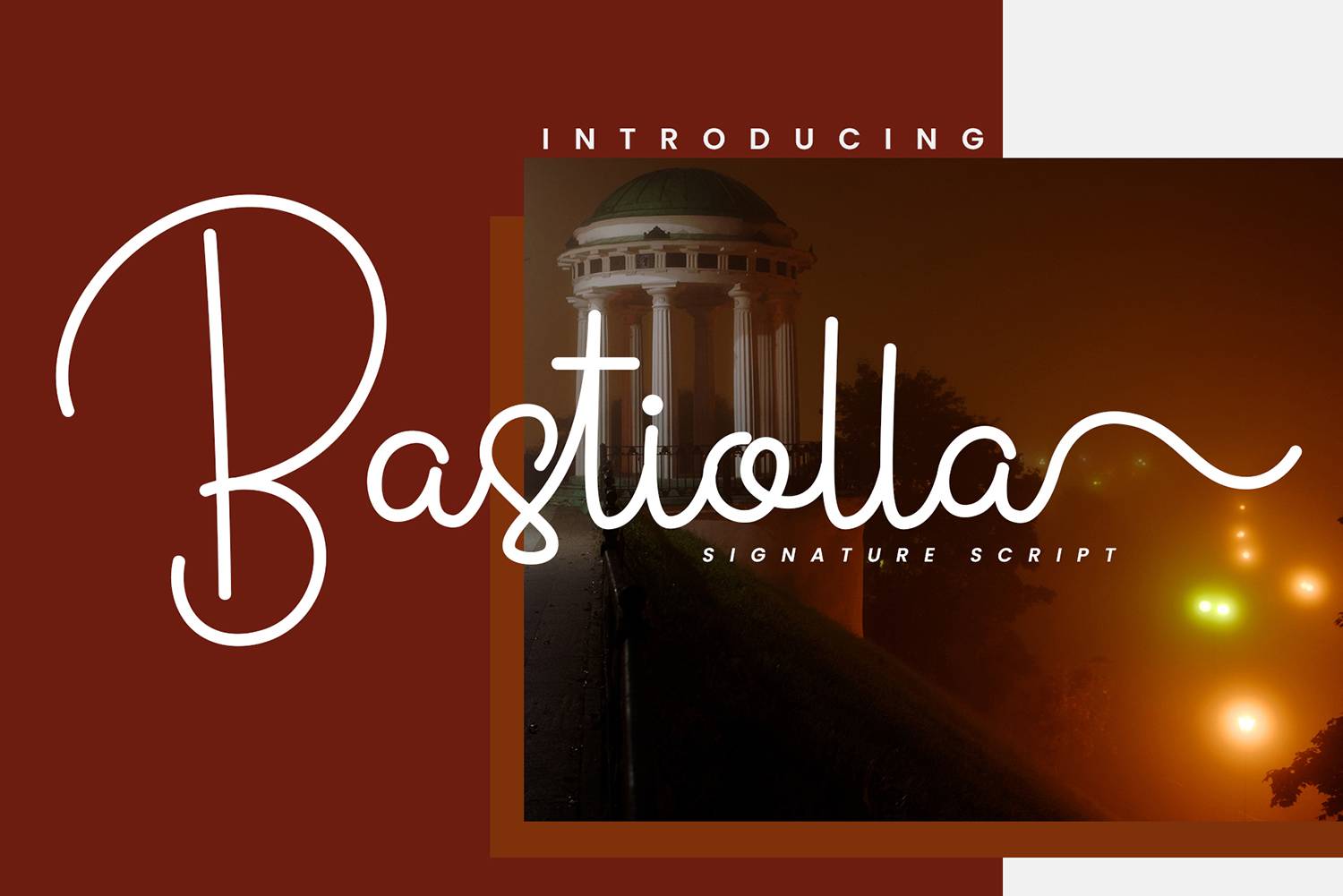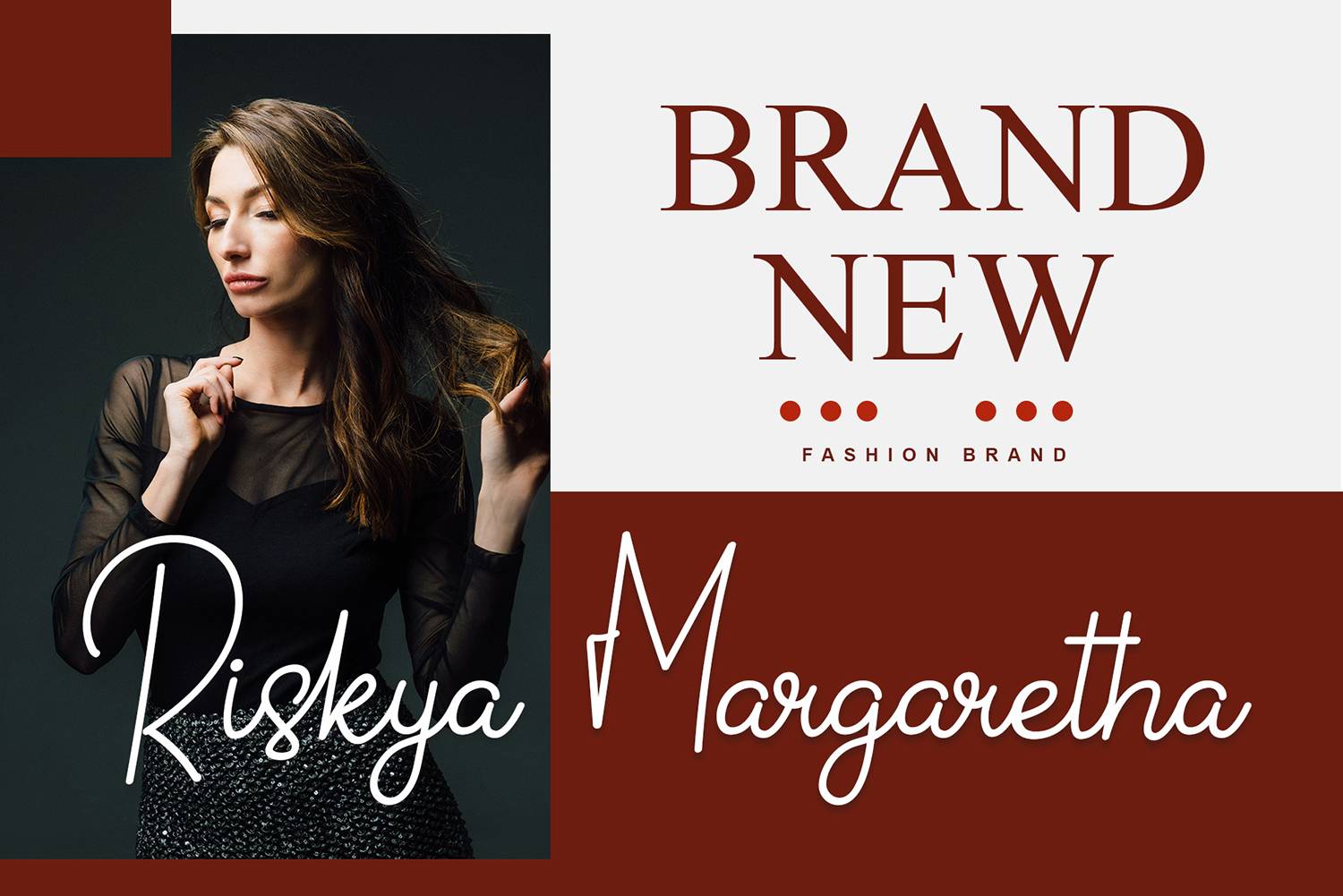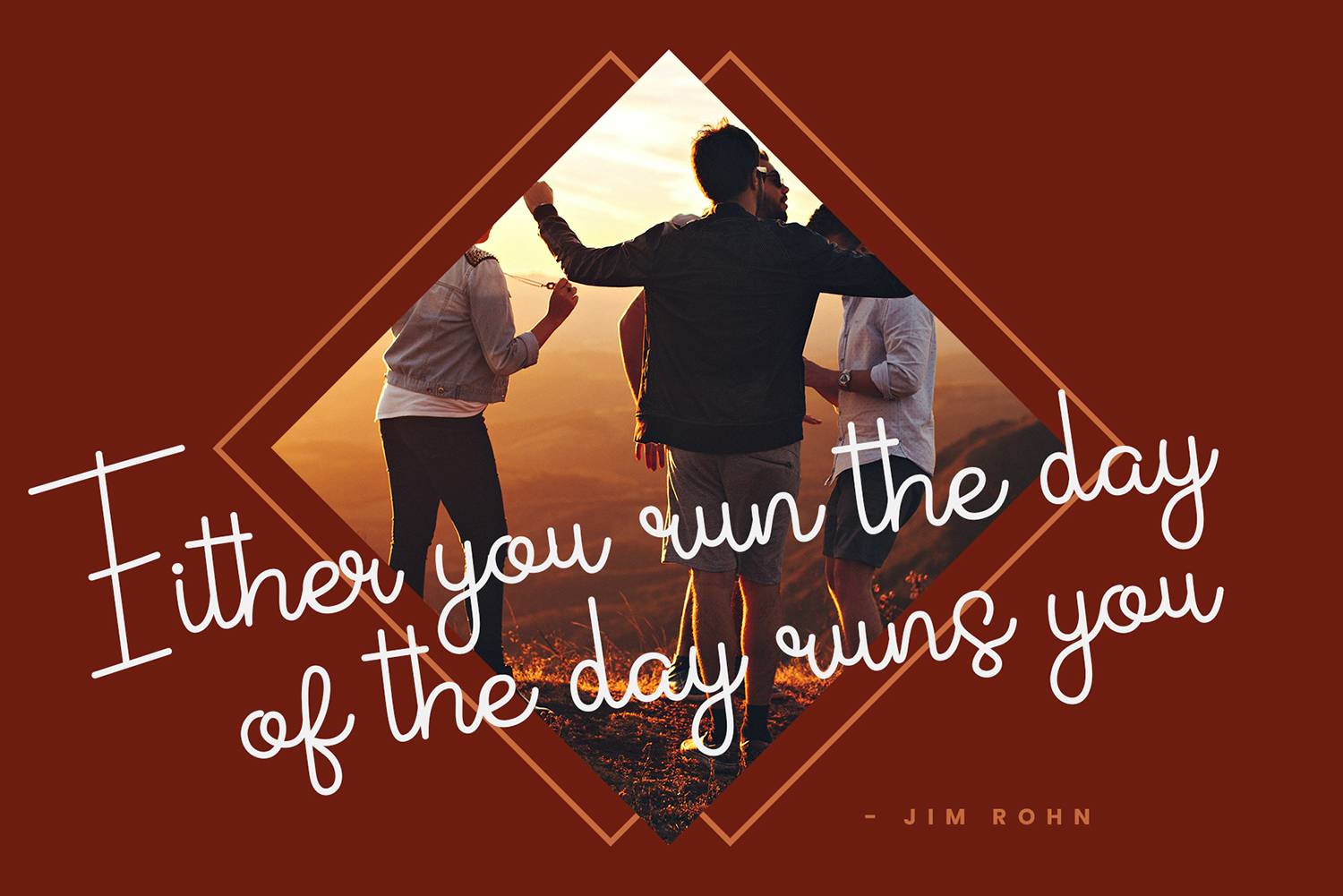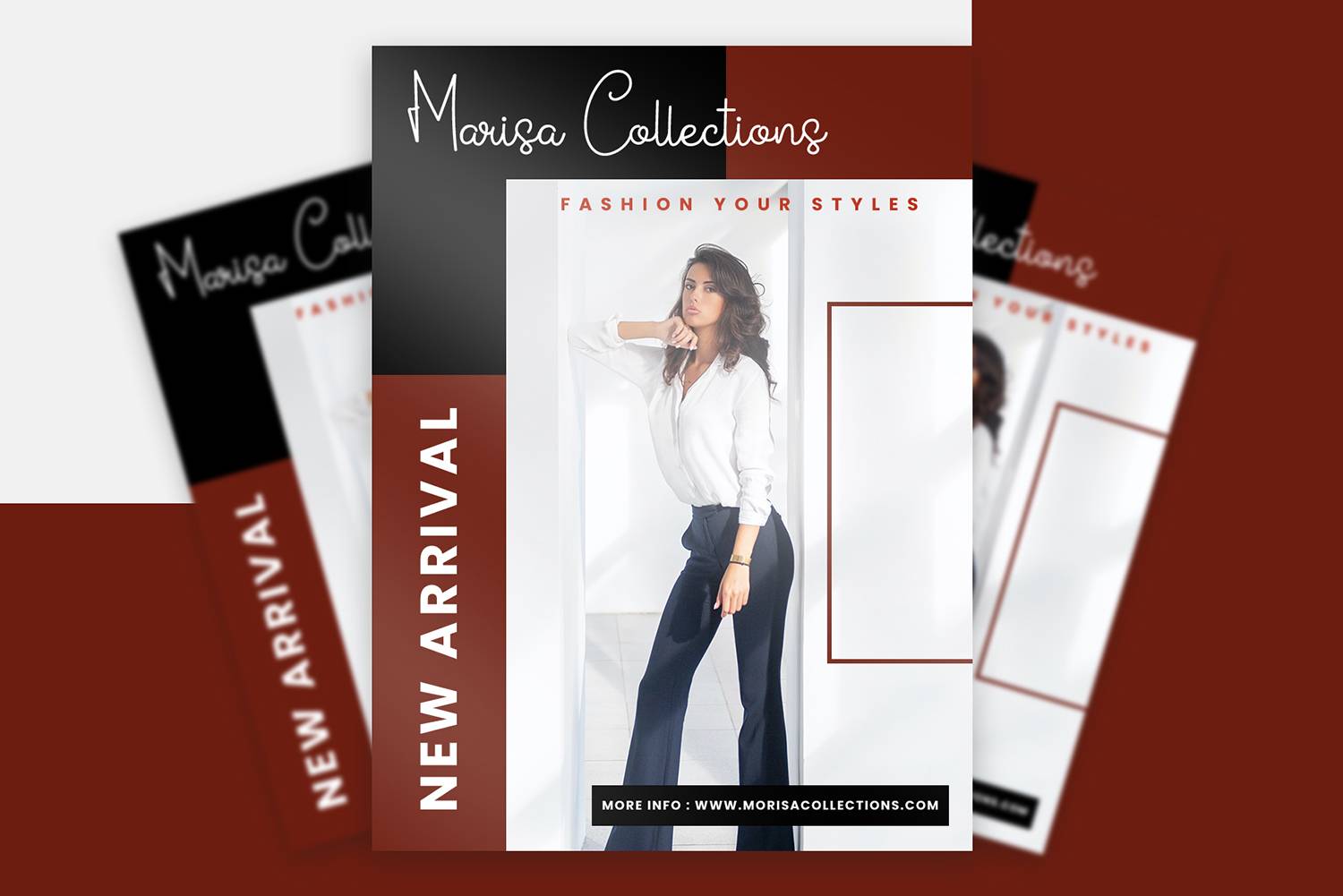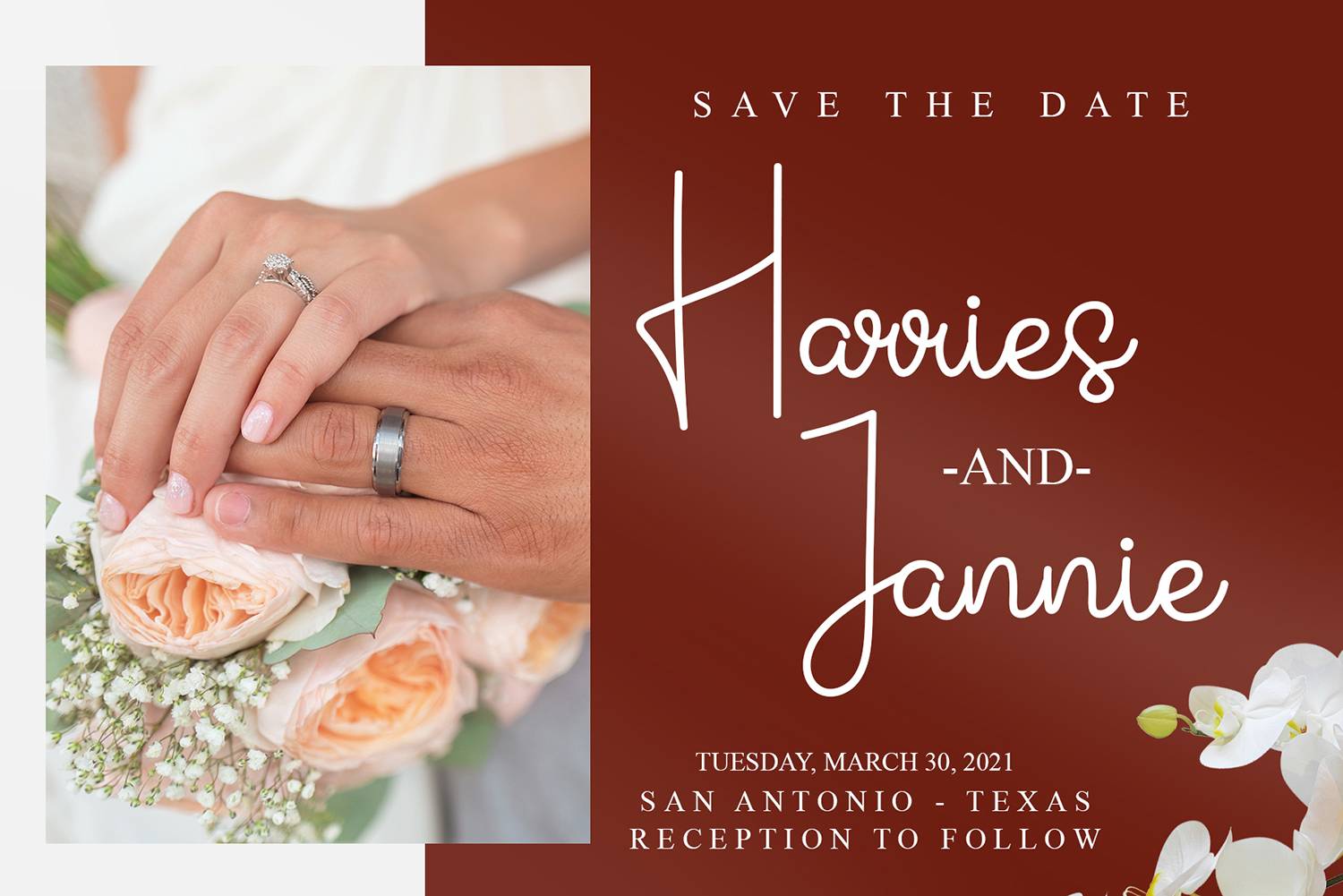
Bastiolla is a playful, handwritten script font with a light and airy feel, featuring delicate, tall letterforms and subtle, whimsical curls. Its narrow, flowing strokes and uniform thin weight create an elegant yet casual style perfect for invitations, greeting cards, and creative branding that welcomes a personal, friendly touch. This font works well where a unique, approachable vibe is desired, blending charm with legibility.
Bastiolla Font
About Bastiolla Font
| Font family | Bastiolla Font |
| Designer | Yayan Sihwadi |